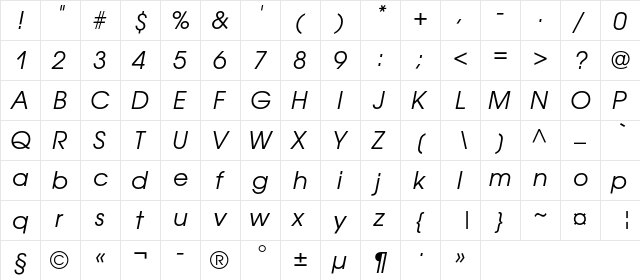
AvantGardeC Italic
Design Context for AvantGardeC Typeface
AvantGardeC is a composed and adaptable typeface that performs quietly and consistently across a wide range of design contexts. Its italic angle brings a sense of urgency and motion to the letterforms.
Pro Tip: Try AvantGardeC for annotation and caption copy alongside an upright companion — the contrast in angle creates a dynamic but ordered typographic system.